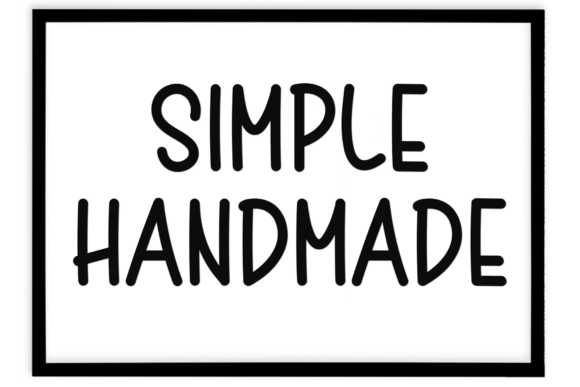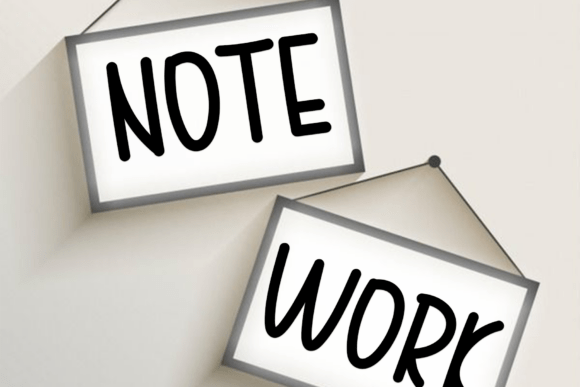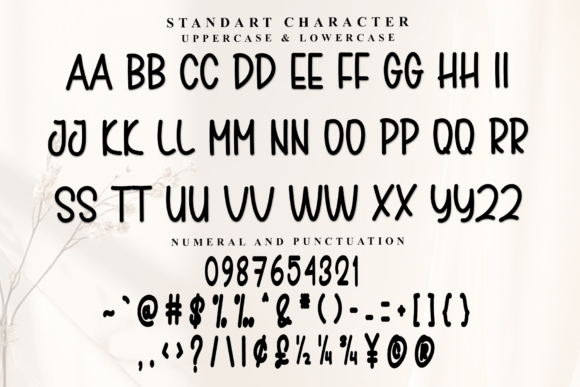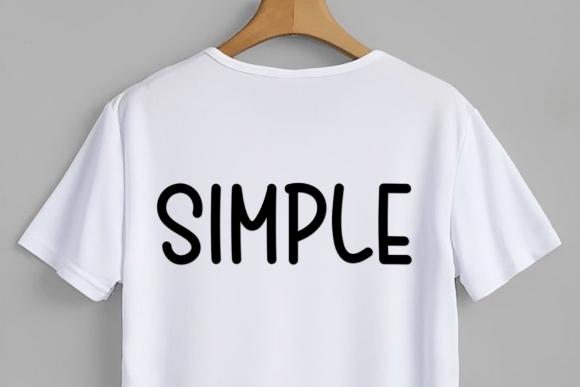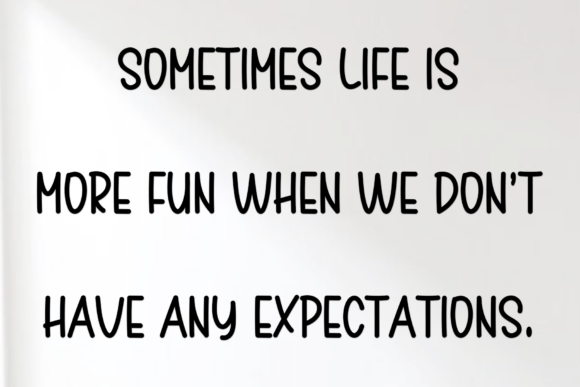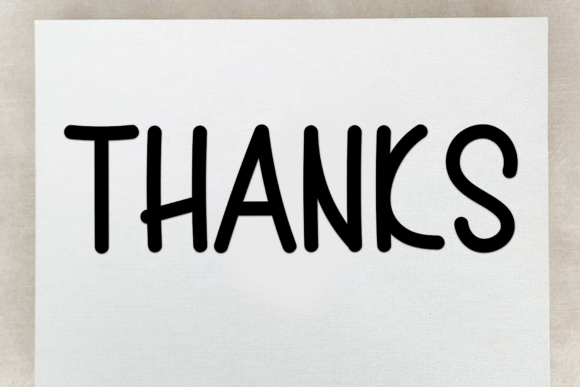
Aurora Designer Font: Elevate Your Designs with a Unique and Versatile Typeface
In the world of design, a font can make all the difference in creating a lasting impression. If you’re a designer, crafter, or creative looking for a beautiful and eye-catching font to elevate your projects, look no further than the Aurora Designer Font. This stunning font is designed with a soft, unique touch that sets it apart from other typefaces, making it perfect for a wide range of design applications.
Distinctive Strokes and Special Character
The Aurora Designer Font boasts distinctive strokes that give it a special character, making it both meaningful and versatile for future use. Its unique design ensures that your designs stand out from the crowd, capturing the attention of your audience and leaving a lasting impression. Whether you’re working on a logo, branding project, or creative craft, this font is sure to add a touch of elegance and sophistication.
Perfect for Design Projects and Creative Works
With a wide range of characters, the Aurora Designer Font is perfect for design projects, crafts, and other creative works. Its natural font style and soft touch make it ideal for use in various applications, including:
- Logo design and branding projects
- Digital and print materials, such as brochures, flyers, and posters
- Crafts, such as scrapbooking, card making, and DIY projects
- Social media graphics and content
Why Choose Aurora Designer Font?
- Unique and eye-catching design: The Aurora Designer Font is designed to stand out from the crowd, making it perfect for designers and crafters who want to create something special.
- Natural and soft touch: The Aurora Designer Font has a natural, soft touch that adds a touch of elegance and sophistication to any design.
- Wide range of characters: With a wide range of characters, this font is perfect for design projects that require a high level of customization.